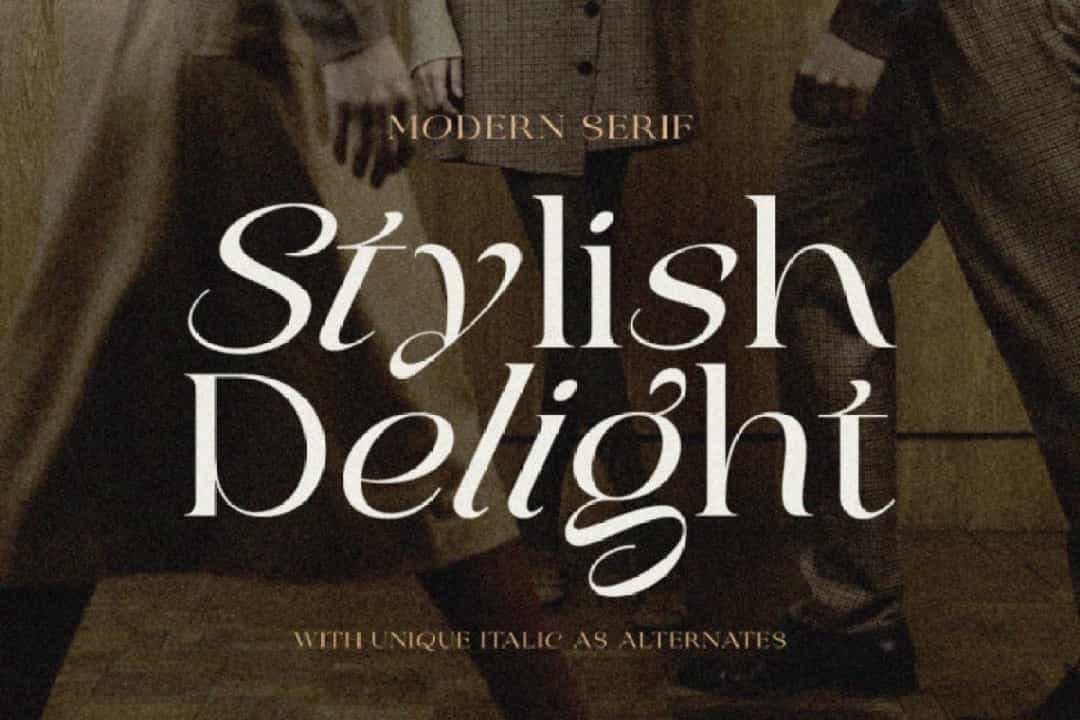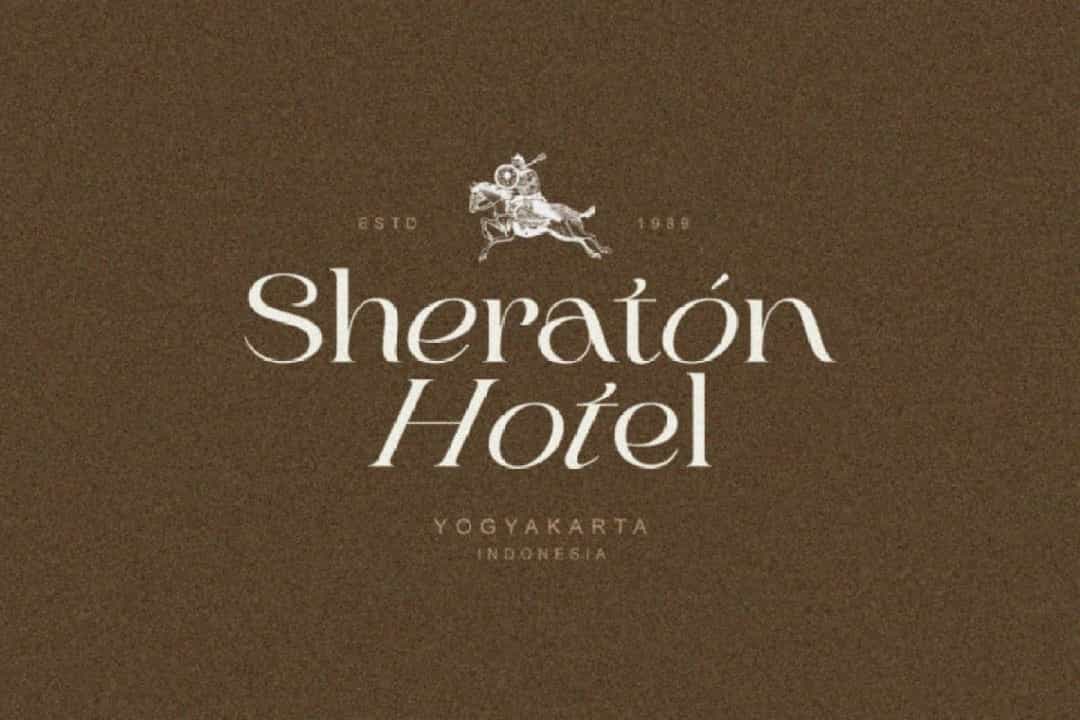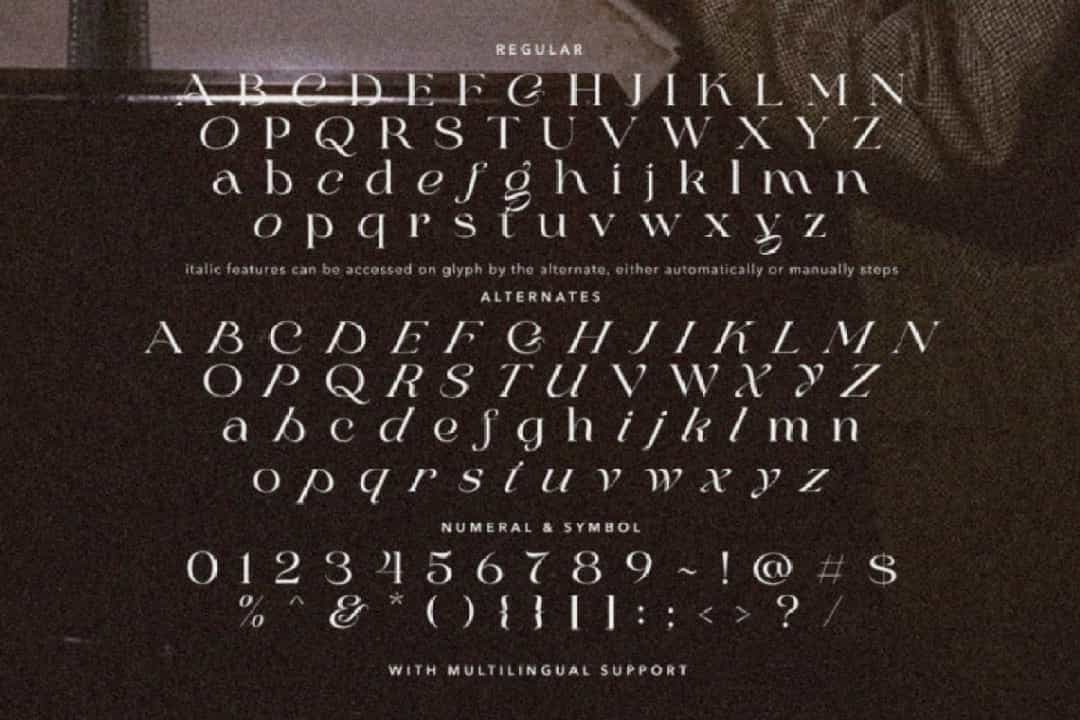
Stylish Delight is an eye-catching serif font with distinctive italics for added impact! Perfect for branding, logotypes and quotes alike – simply combine standard characters with alternate characters for maximum flexibility in creating the best appearance possible!